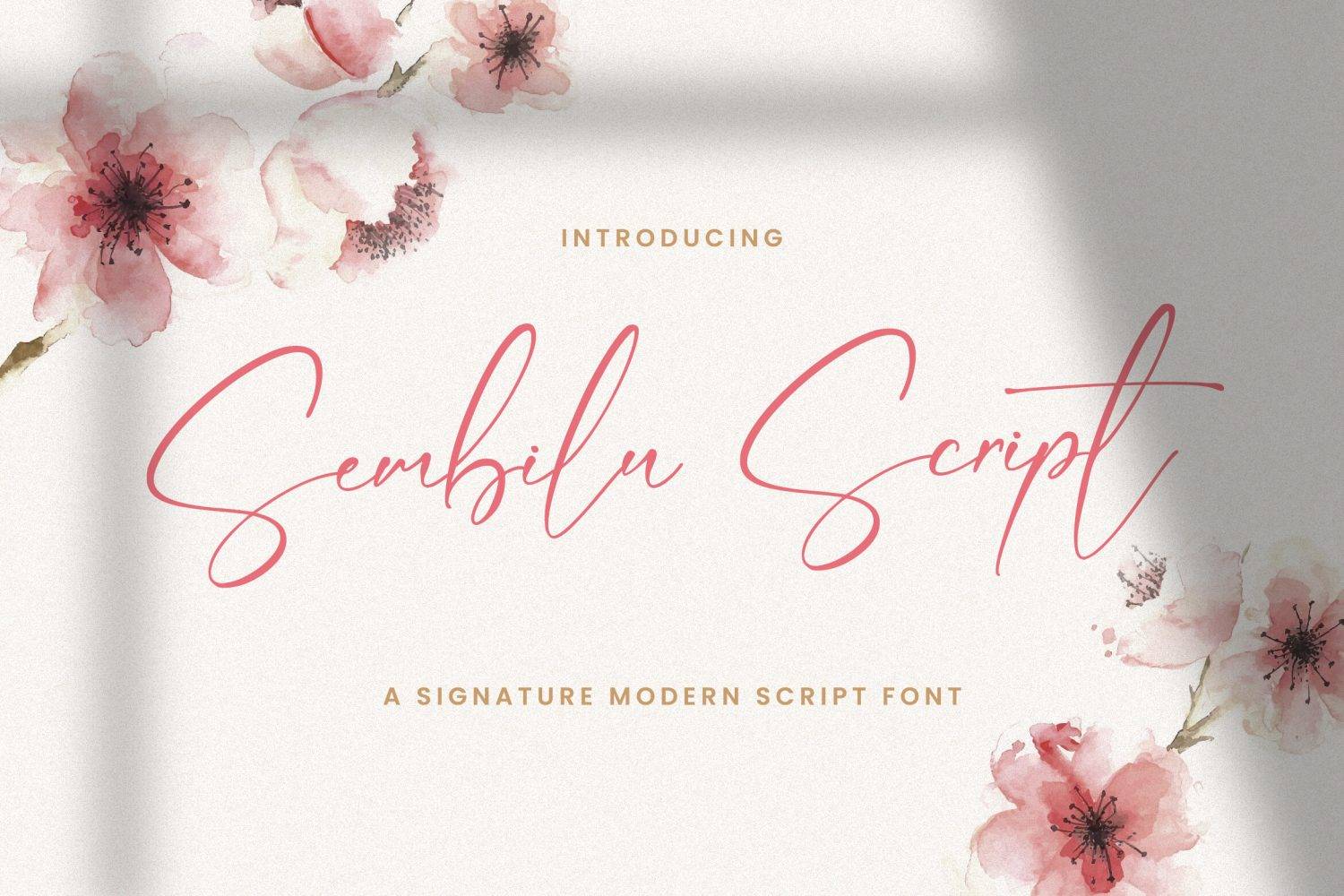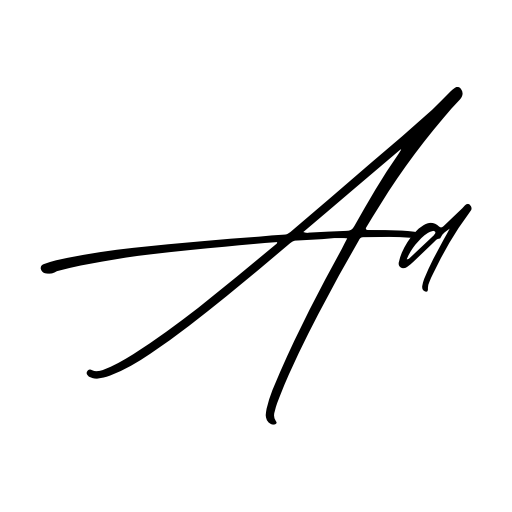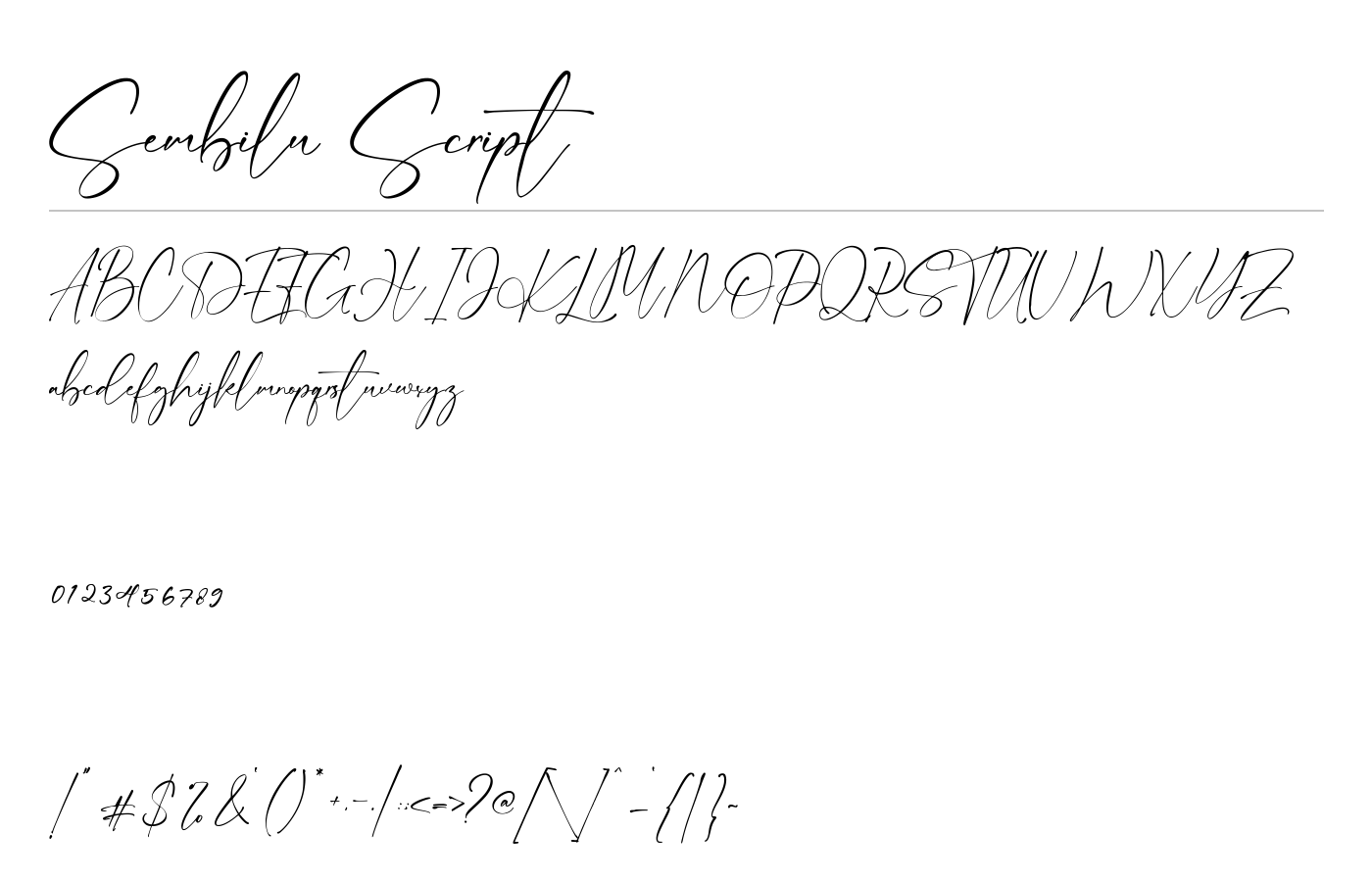
Sembilu Script is an elegant, delicate script font characterized by slender, flowing lines that evoke a graceful, handwritten feel. With its thin, airy strokes and stylishly looped characters, it brings a refined and romantic personality ideal for invitations, branding, and creative projects that require a touch of sophistication and charm. Its light and artistic flair make it perfect for headlines and logos where elegance and a personal touch are key.
Sembilu Script Font
About Sembilu Script Font